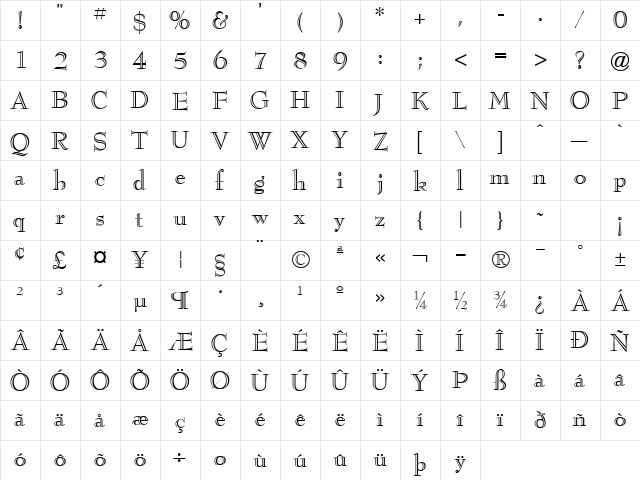
Bernhard Modern ICG Eng
Design Context for Bernhard Modern ICG Typeface
Bernhard Modern ICG takes a measured approach to typography — its balanced proportions and neutral character make it a reliable workhorse for both digital and print work.